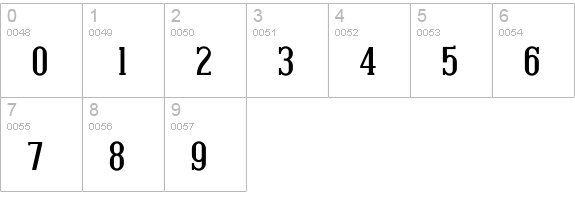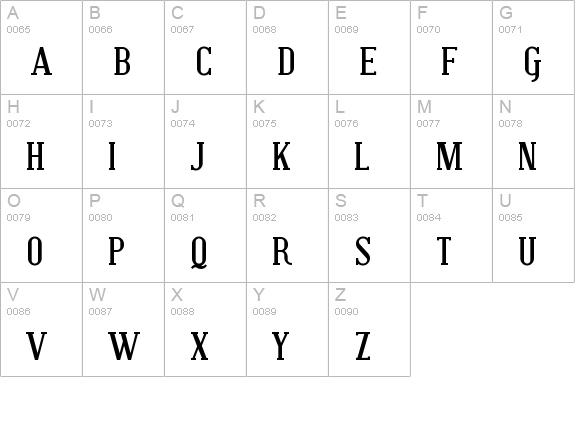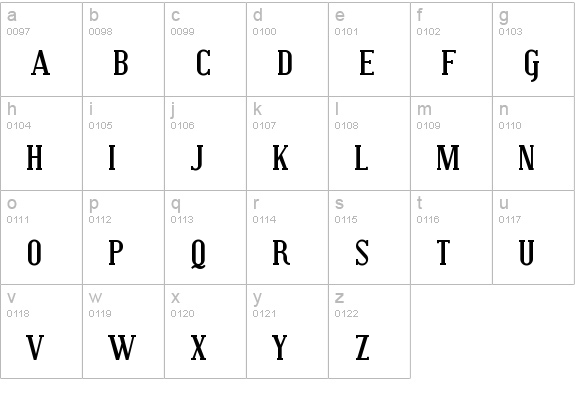
Covington SC Bold is a strong, high-contrast variant in the Covington typeface family \xE2\x80\x94 well suited to headlines, attention-grabbing titles, and strong calls-to-action.
Covington SC Bold is a modern and sleek font that exudes sophistication and elegance. Its strong and bold lettering makes a statement, perfect for headlines, logos, and branding projects. The font's clean lines and sharp edges give it a professional and polished look. What sets Covington SC Bold apart is that it is not only stylish and versatile but also free to download. You can easily access this high-quality font at FontsMarket.com, making it a valuable addition to your design toolkit without any cost. Embrace the boldness of Covington SC Bold and elevate your designs with this striking typeface.